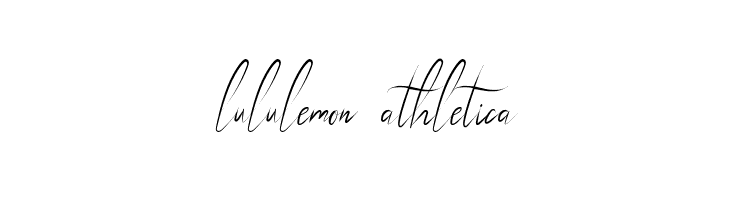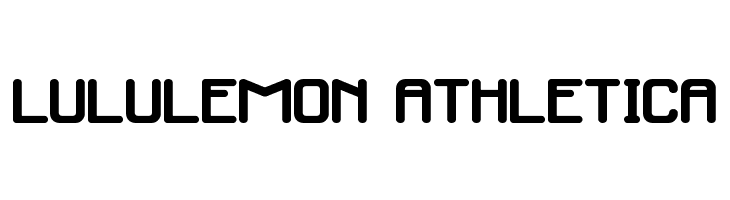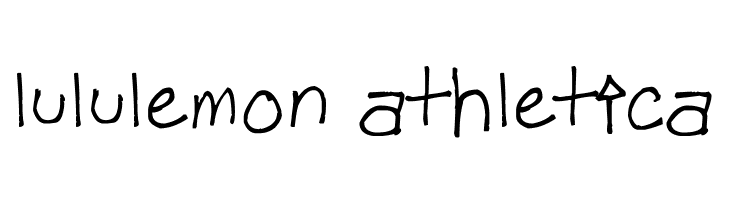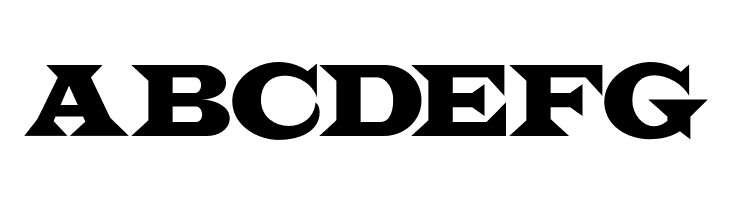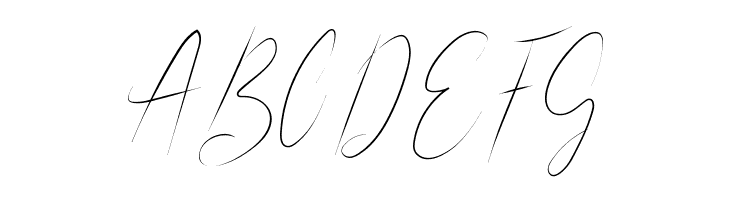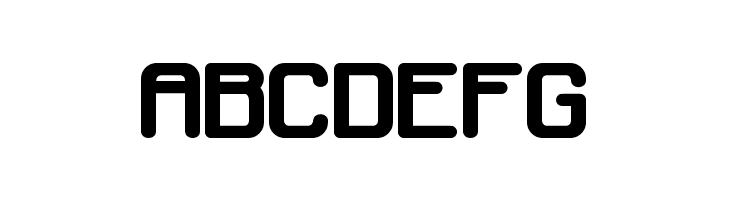
A playful, handwritten font with bold, irregular strokes.
An elegant, flowing script font with thin, graceful strokes.
A bold, slab serif font with a vintage yet modern appeal.
A modern, geometric font with rounded edges and a bold, futuristic style.
Decorative, pictographic font with ancient, symbolic motifs.
A calligraphic font with elegant, flowing strokes and dynamic line thickness.